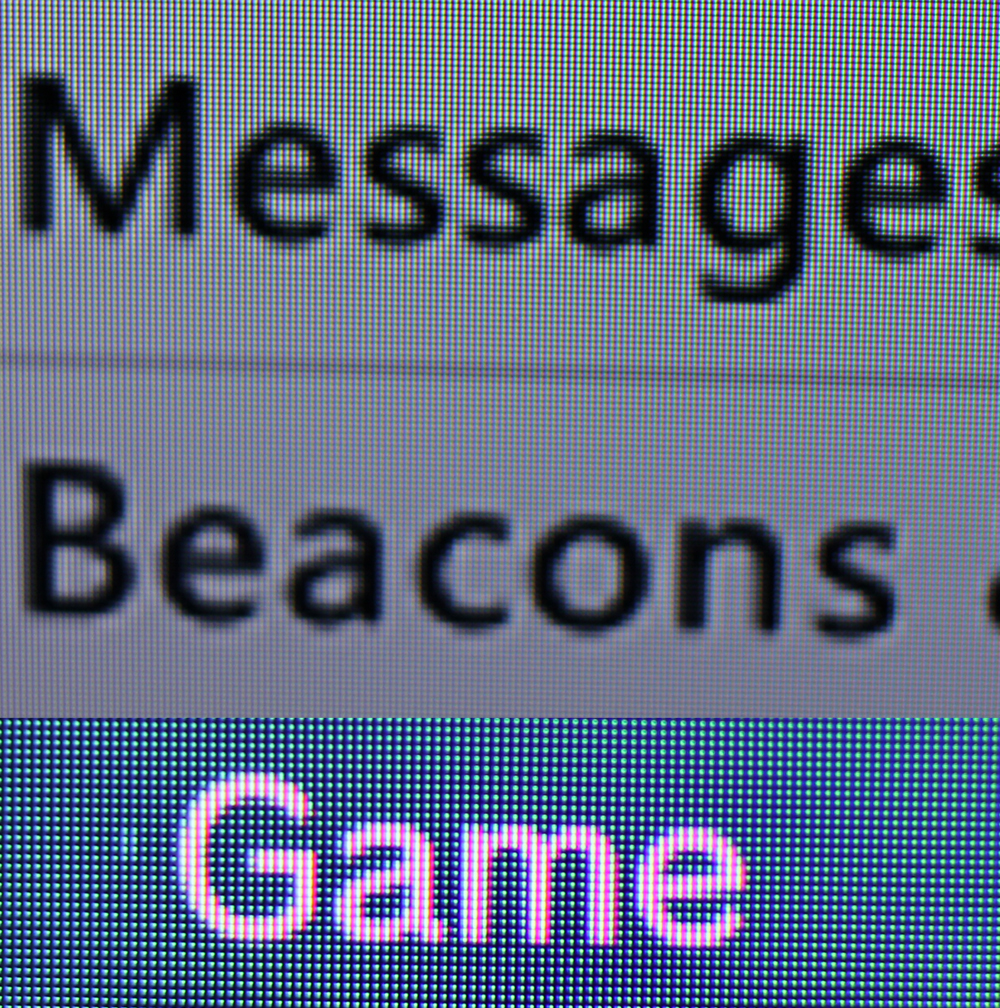
This keeps on bugging me in the most minor of ways, but is the font rendering on the Xbox slightly broke for anyone else? I've uploaded an example photo (with a PS3 comparison below).
The Xbox font looks like a lower res image scaled up. Some edges have steps and there's an inconsistent white edge (to add depth?) around some characters, overall it just looks blurry and messy.
It's a new TV and all the processing things have been deactivated for games. Every other 1080p device looks great.
Am I alone in this?